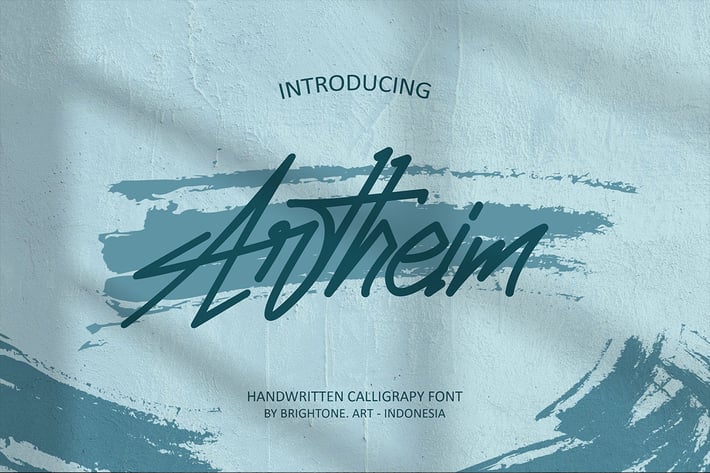
Artheim - Handwritten Type Font
Artheim is Handwriting font includes uppercase, lowercase, punctuation, numbers, support multilingual, and good ligatures.
This font will be good use to branding your brand, tshirt design, lettering design, logo, or looks great when combined with your product for instagram post or instagram story.